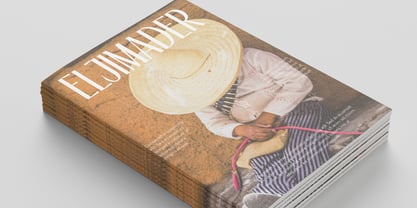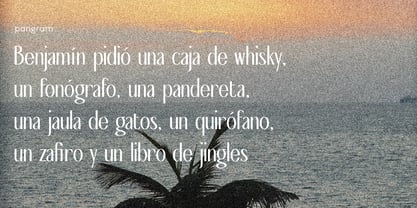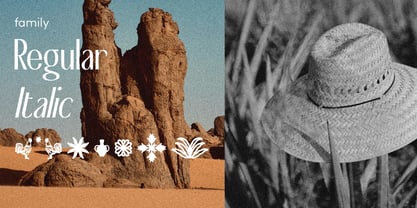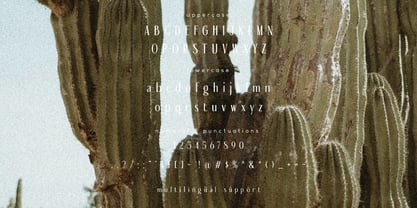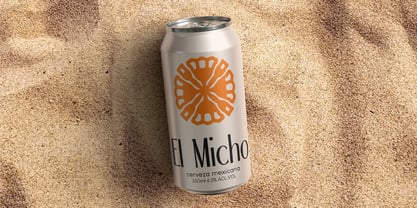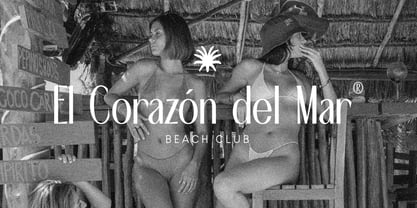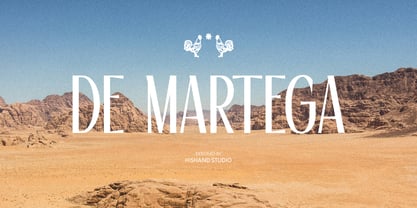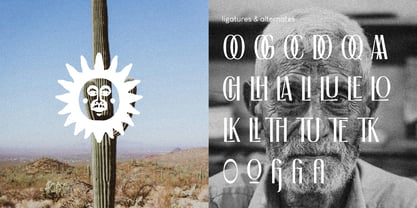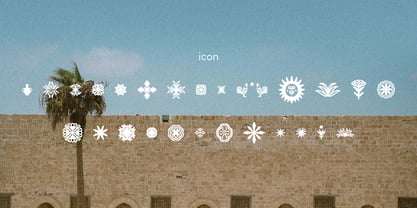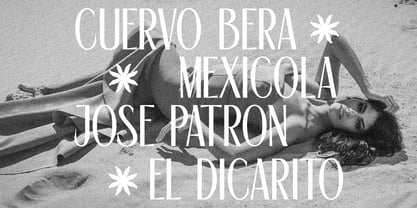
De Martega
by Hishand Studio
The De Martega Font Family was designed by Putu Dody Permana and published by Hishand Studio. De Martega contains 3 styles and family package options. More about this family
De Martega is a refined serif typeface with tall, elegant letterforms and a confident presence. The contrast between its bold verticals and delicate curves gives it a sophisticated yet approachable look. Slightly condensed in shape, the font carries a modern touch while still holding onto a classic serif character. It feels stylish and polished, but with just enough organic detail to avoid looking rigid or mechanical. This balance makes De Martega especially suited for branding, packaging, and editorial projects that need a sense of authenticity and class. Whether it’s used on a wine label, a fashion logo, or a headline, the font delivers a timeless impression with a hint of rustic charm. Designed by Hishand Studio, De Martega is all about blending elegance with personality, making it a versatile choice for creatives who want their work to stand out. ligatures alternates regular Italic icon kerning multilingual support